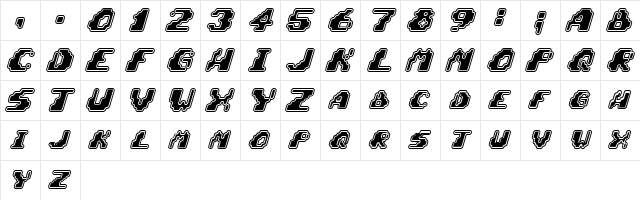
Zero Velocity (BRK) Regular Font Preview
Zero Velocity (BRK) Regular
Design Context for Zero Velocity (BRK) Typeface
Zero Velocity (BRK) is a composed and adaptable typeface that performs quietly and consistently across a wide range of design contexts.